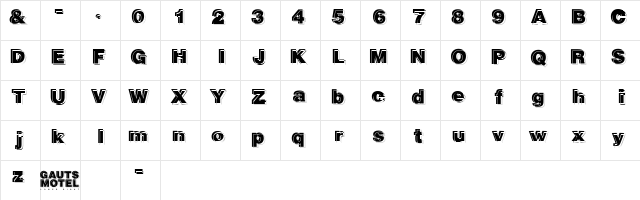
GautsMotelLowerRight Regular
GautsMotelLowerRight offers clean, dependable letterforms without strong stylistic allegiance, making it a practical choice for designers who need flexibility.